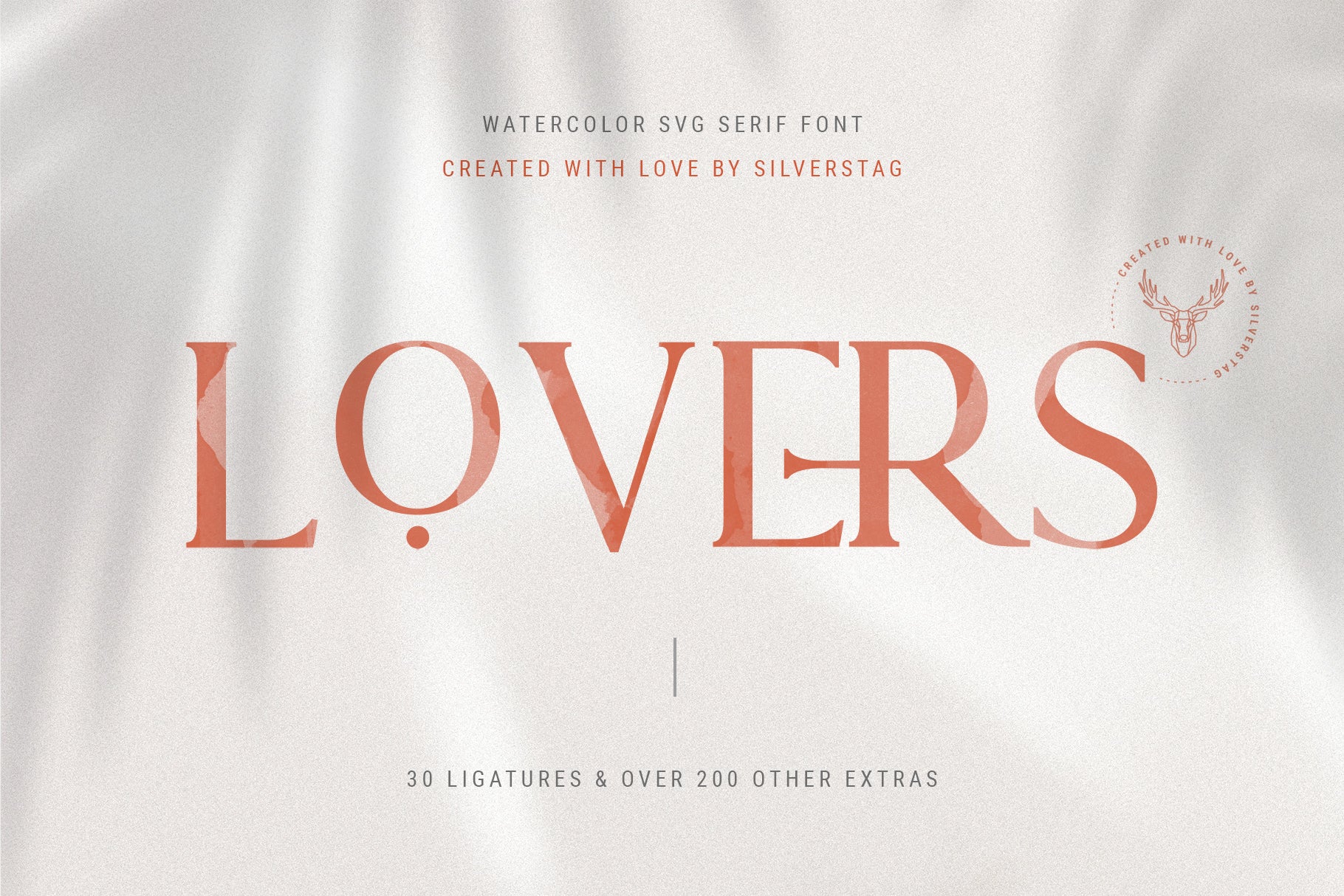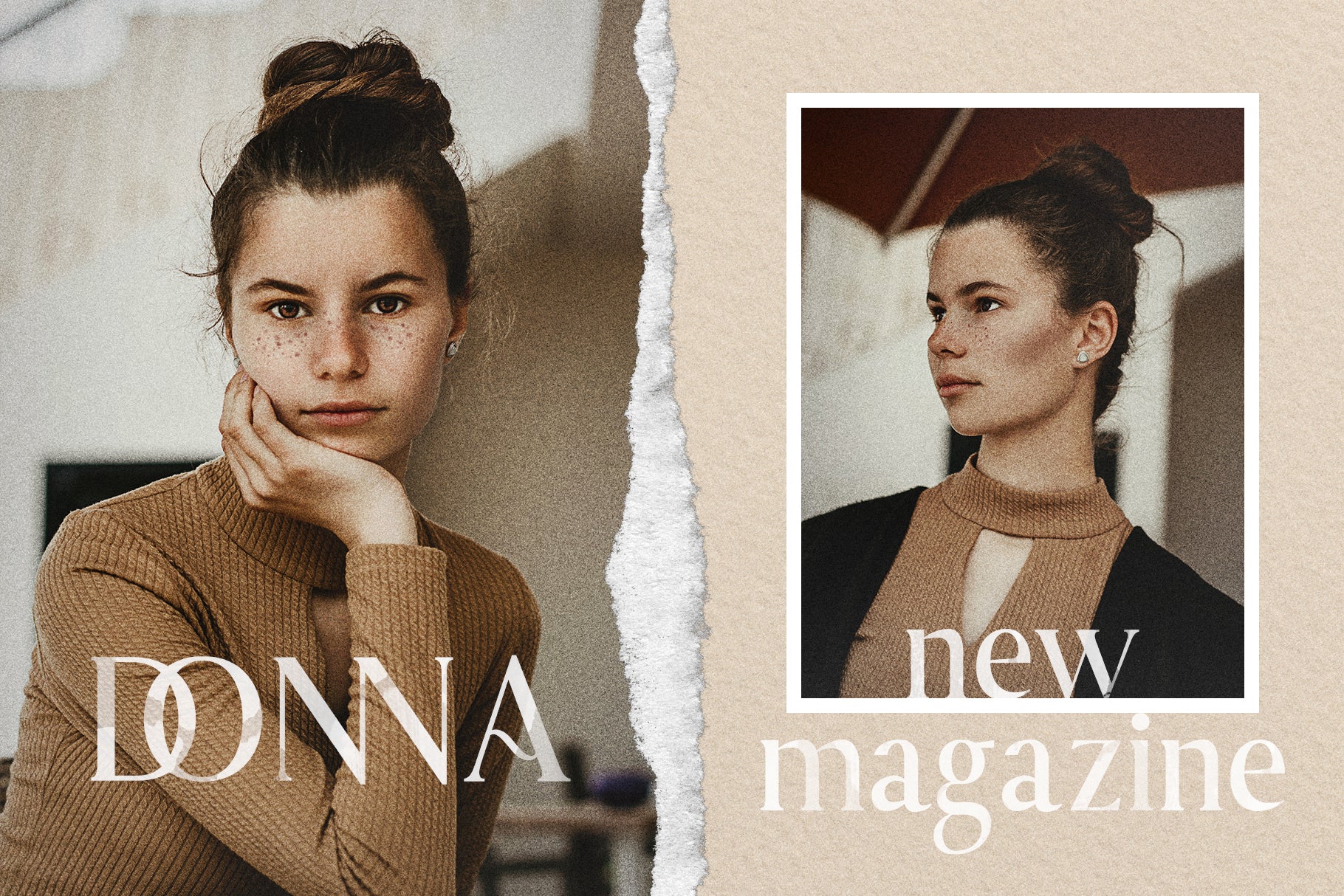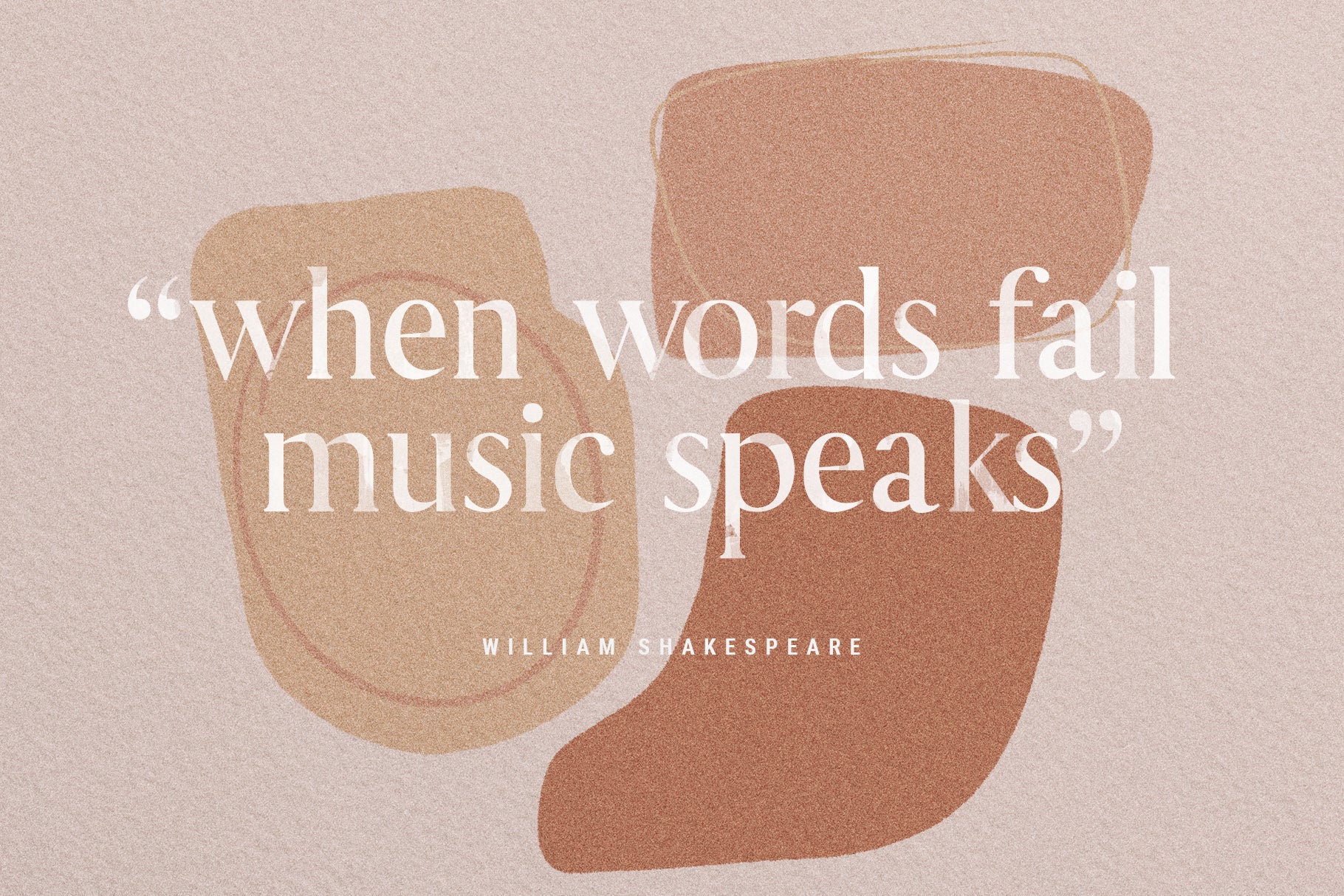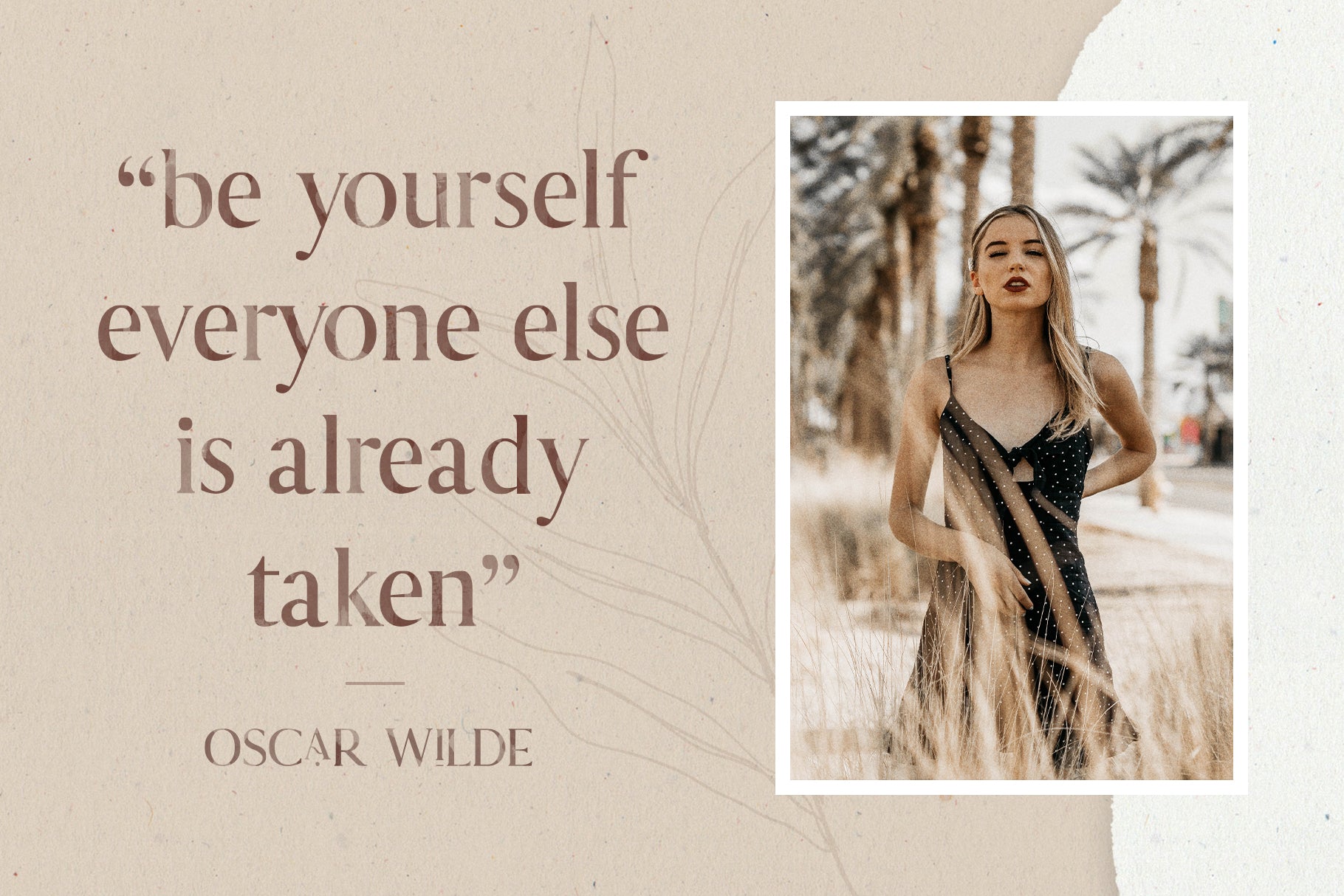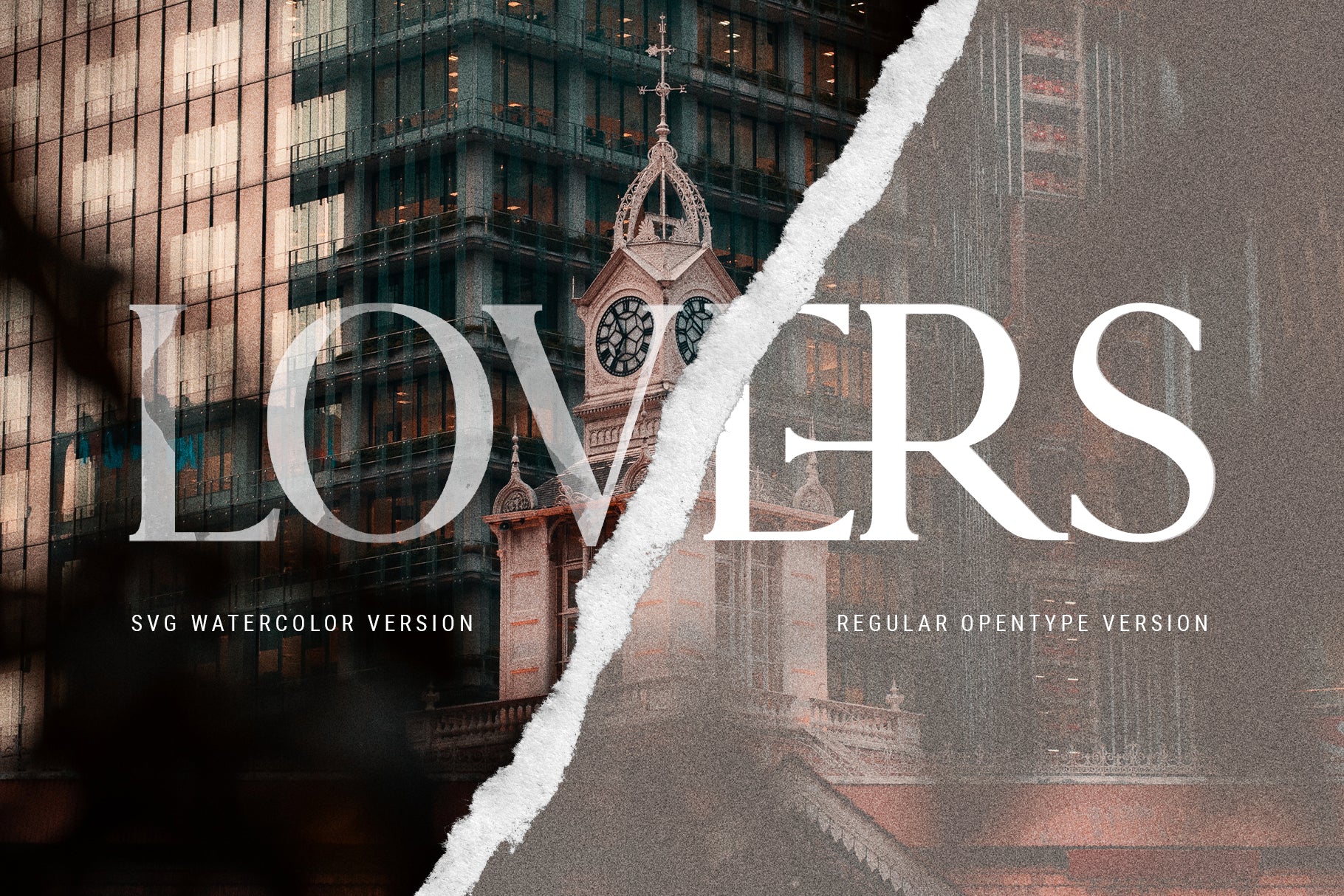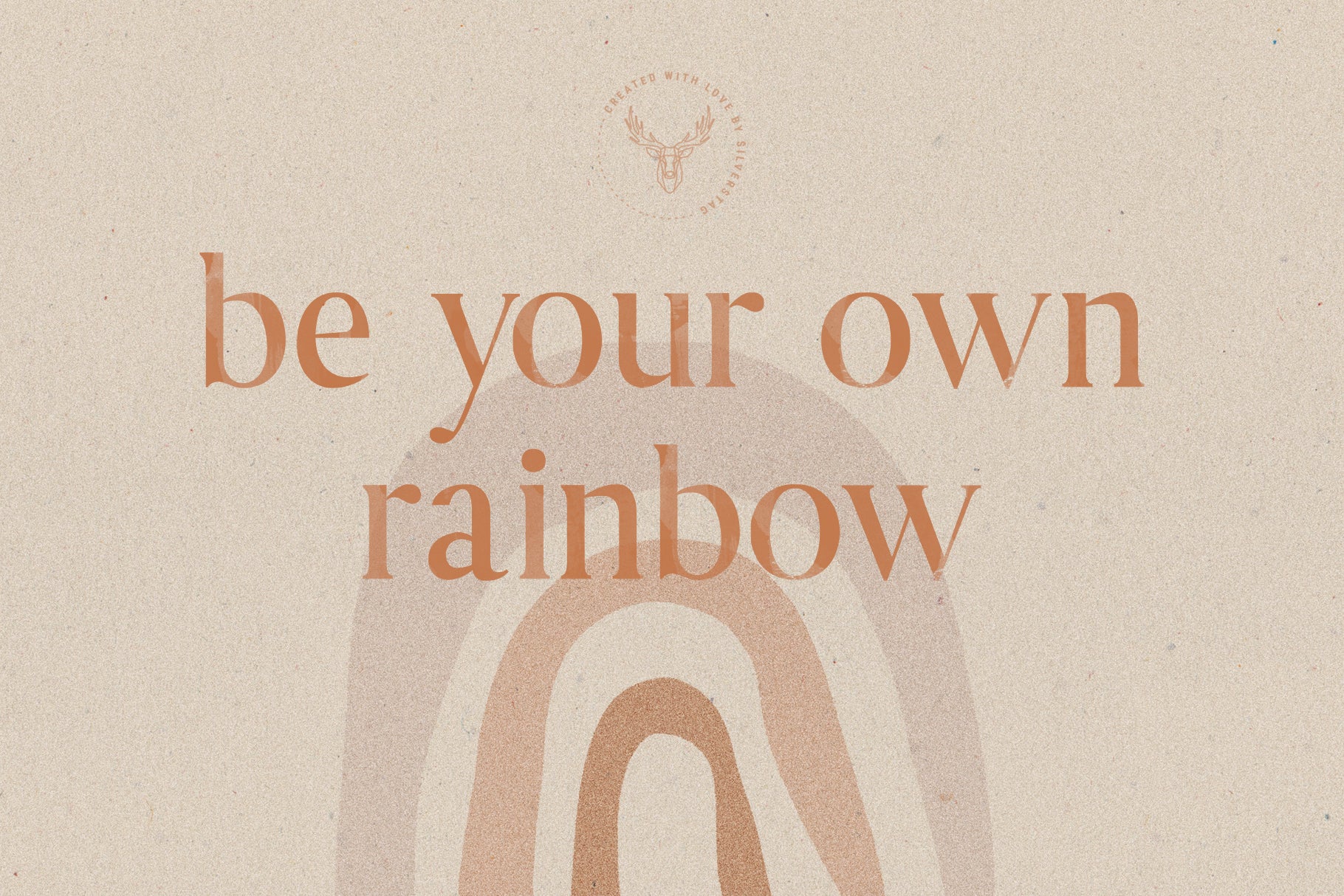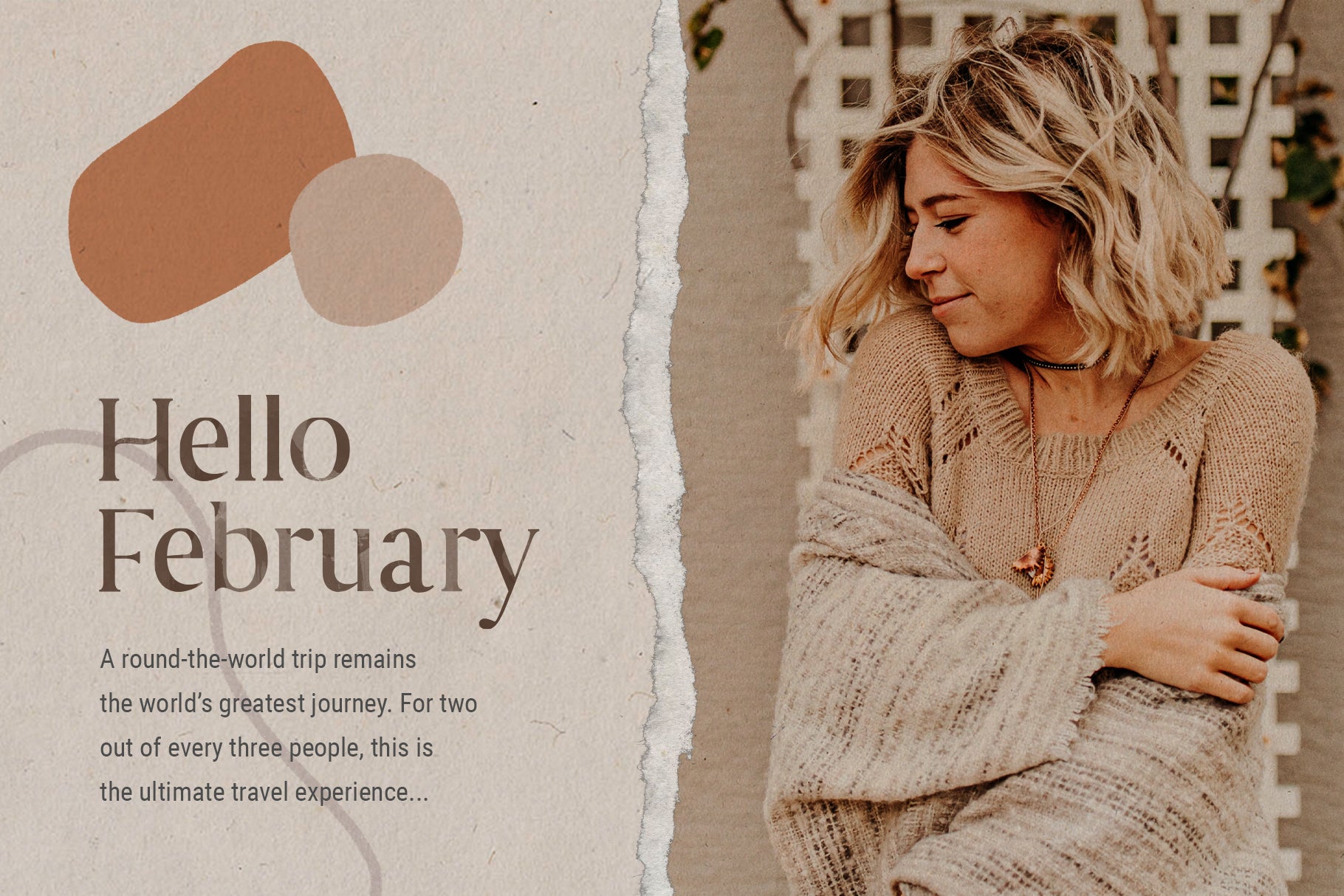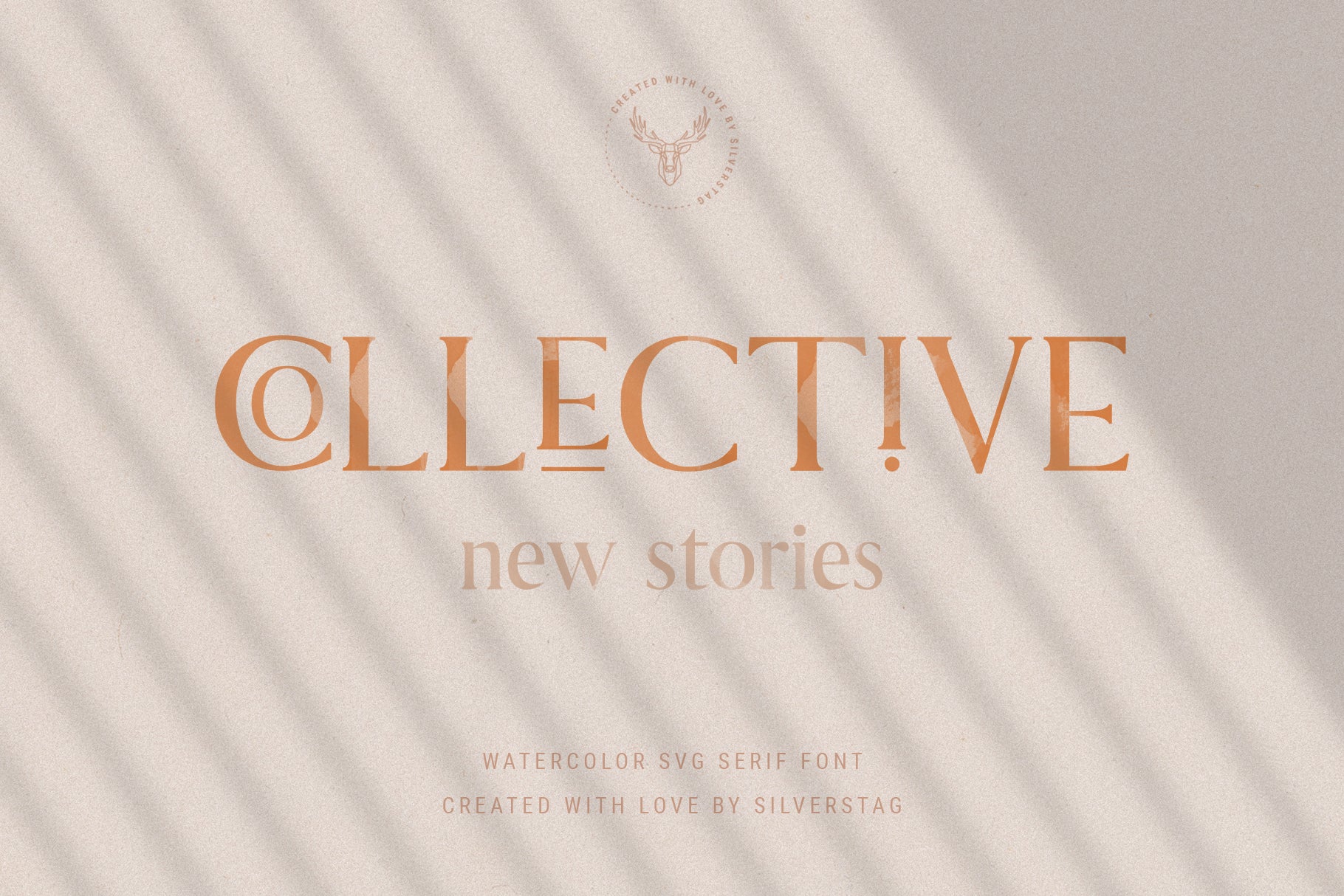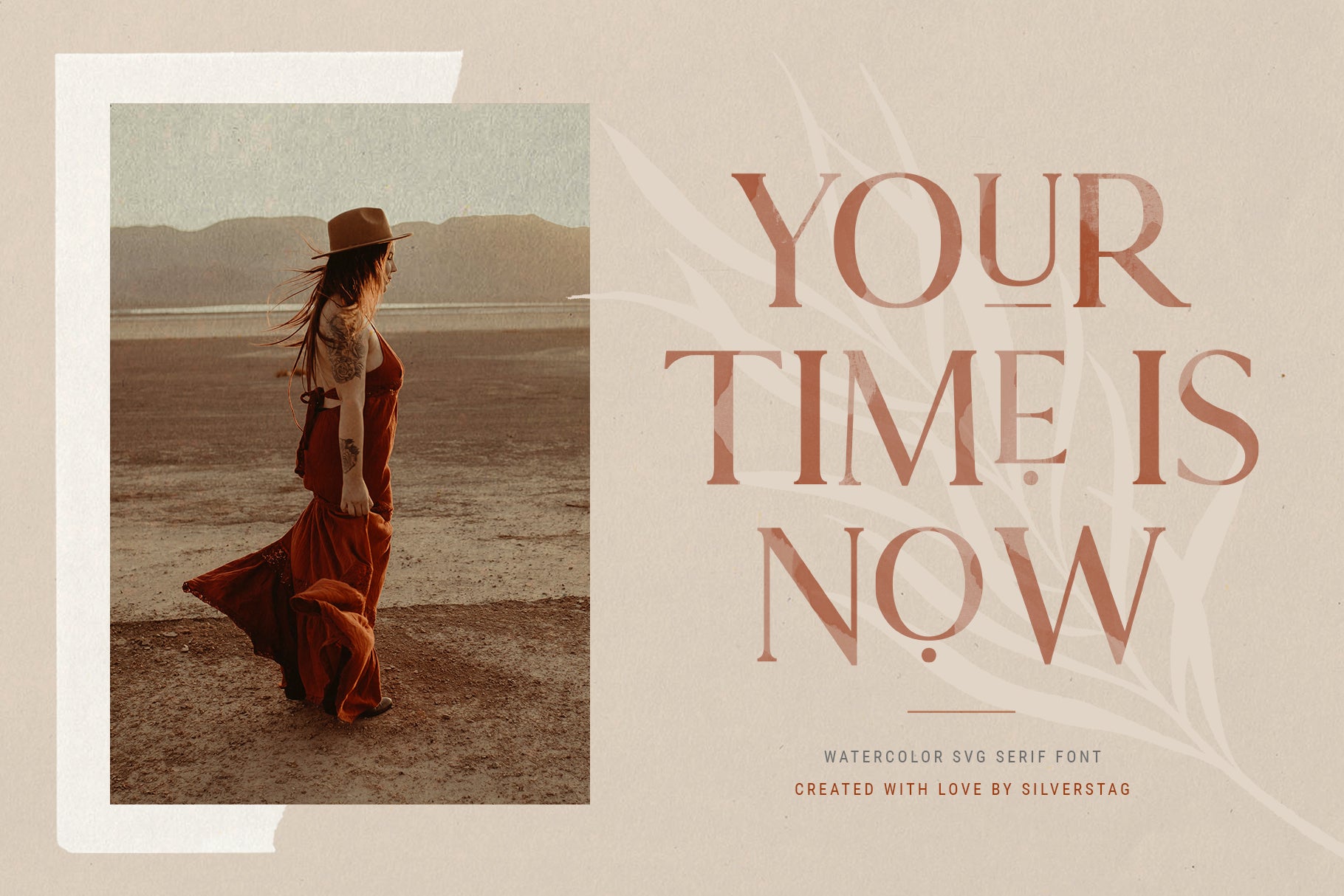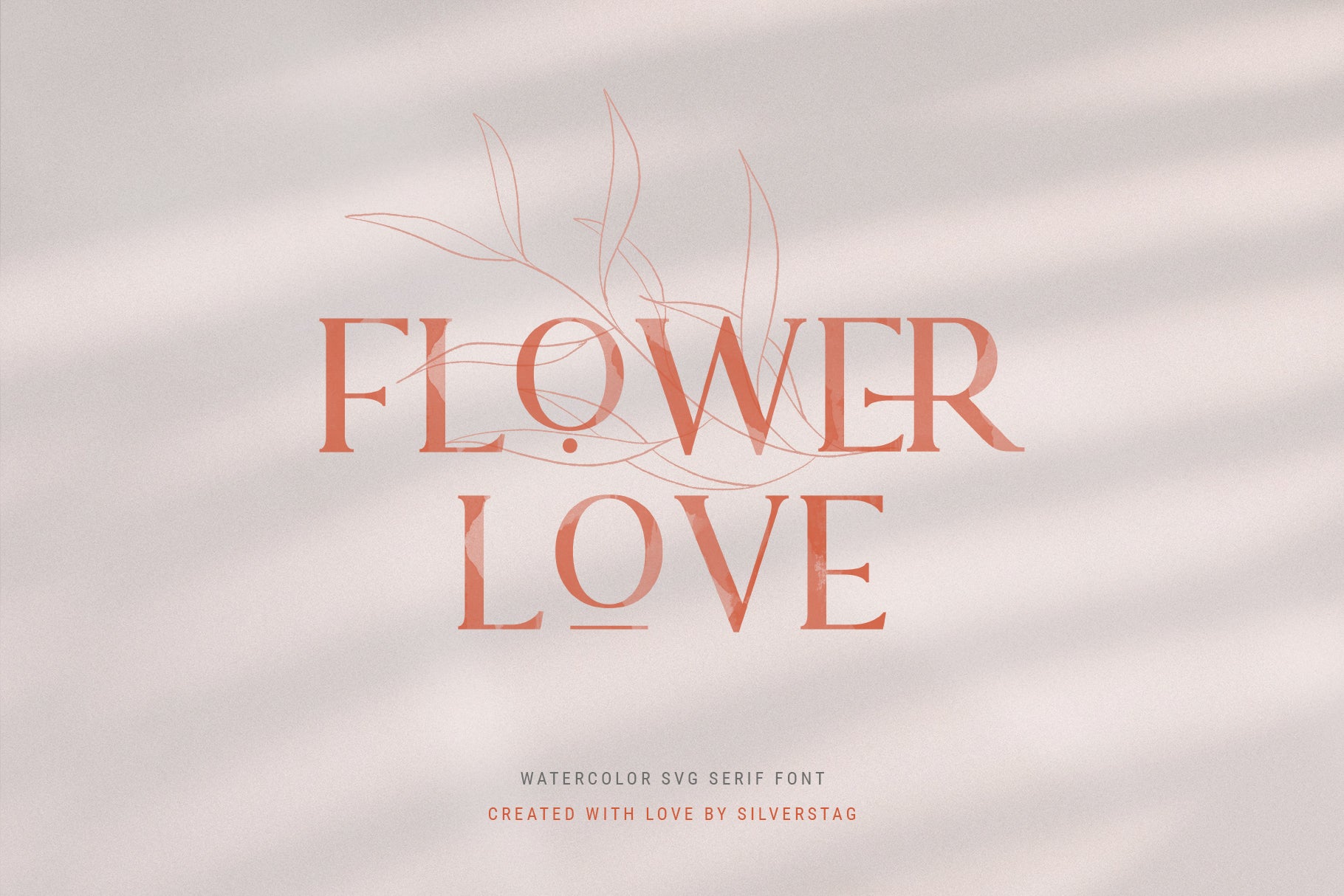
Lovers SVG Serif is a luxurious watercolor serif font created for designers who want to combine refined elegance with a touch of artistic texture. After crafting several successful script fonts like Maria Rose and Verona Amore, I wanted to bring that same expressive style into a serif format—and Lovers SVG is the result of nearly two months of hand-drawn perfection.
This pack includes both the SVG watercolor version and a standard fallback version for full compatibility across all design software. With ligatures, alternate letters, and elegant glyphs, this serif font offers a uniquely romantic look perfect for wedding invitations, branding, packaging, and editorial projects.